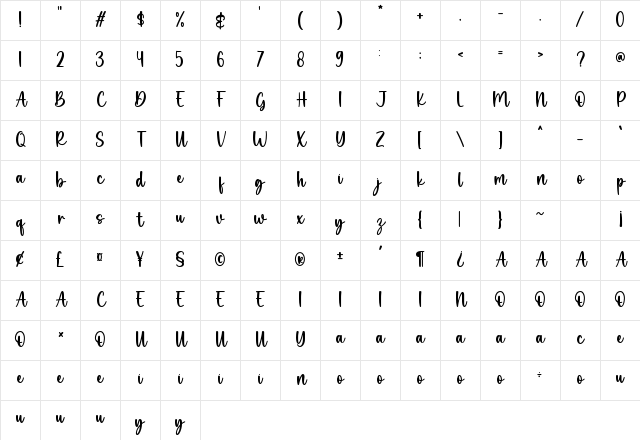
Nikita Regular
Foundry: Graphix Line Studio
Designer: Aldi Raya Pradipta
Design Context for Nikita
Nikita is a composed and adaptable typeface that performs quietly and consistently across a wide range of design contexts.